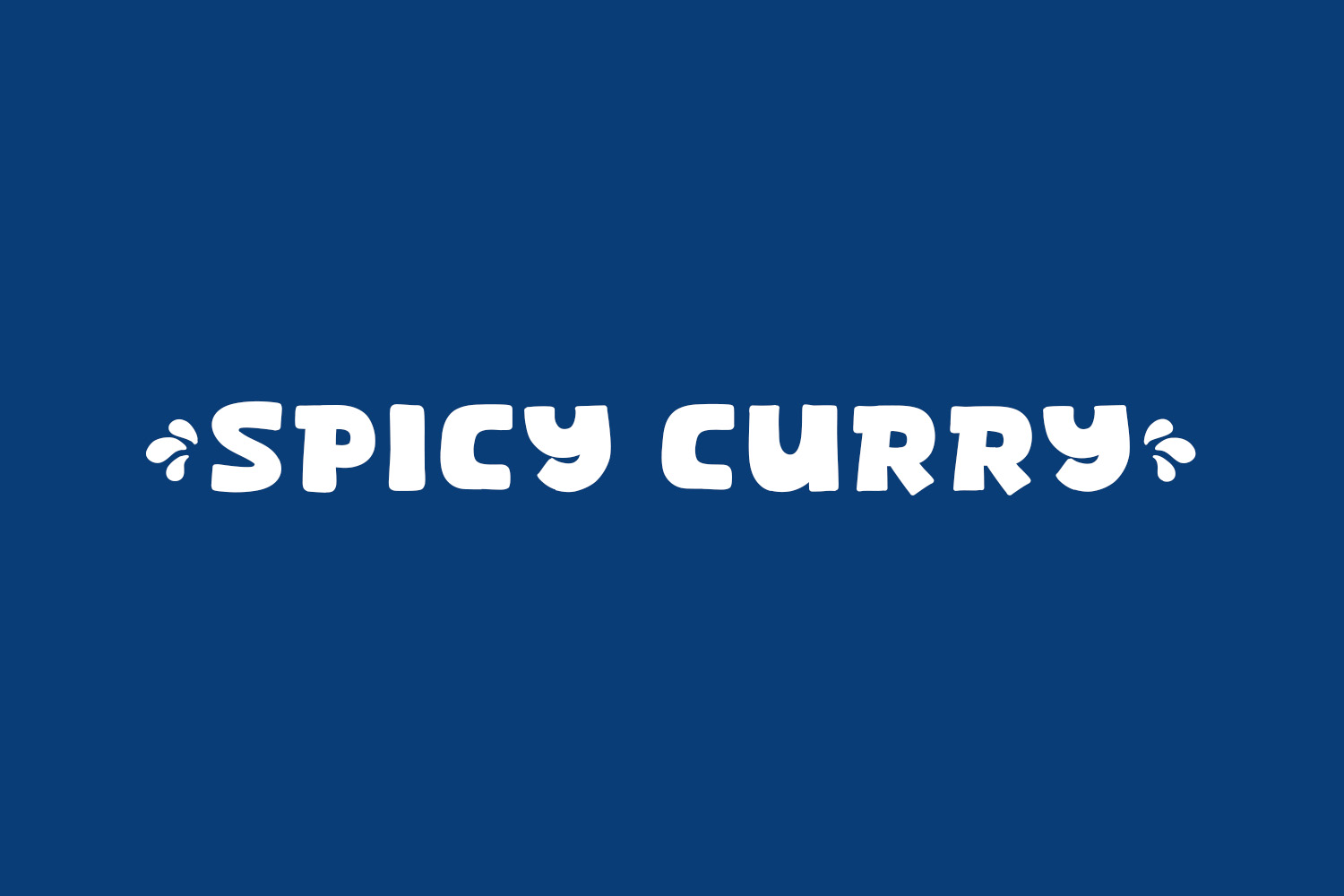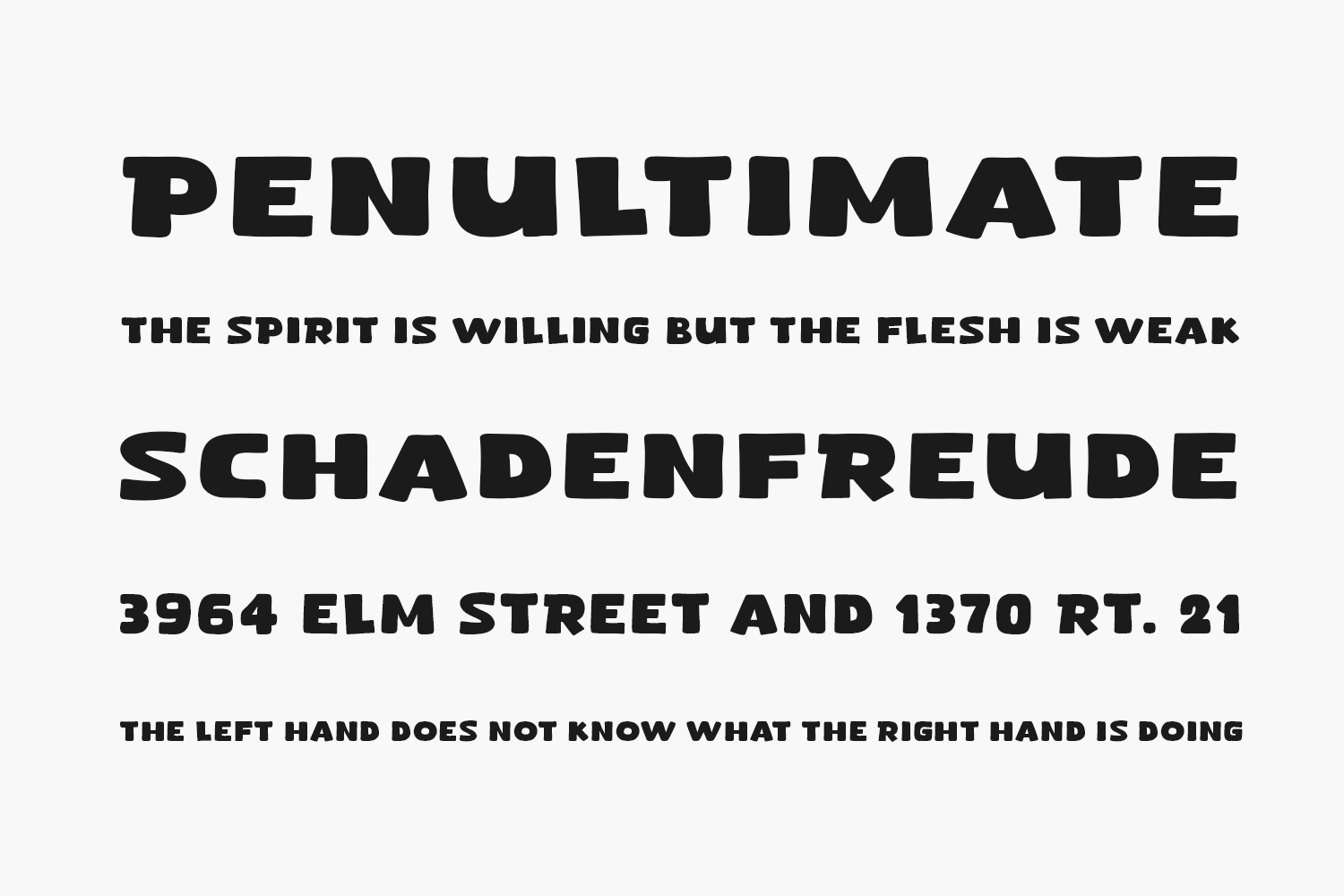
Spicy Curry Free Font is an enchanting handwritten display font that seamlessly blends modern aesthetics with a charming appeal. Tailored for diverse applications including posters, logos, magazines, book covers, banners, and beyond, this font is a must-have for your creative toolkit. Unleash its magic to craft delightful designs that captivate. With its adaptability across a wide spectrum of projects, Spicy Curry effortlessly integrates into your imaginative concepts, ensuring they shine uniquely. Elevate your creative visions with Spicy Curry and experience how it effortlessly elevates your designs to stand out amidst the crowd. Spicy Curry Free Font is free for personal use only. Please purchase the full version for commercial use.